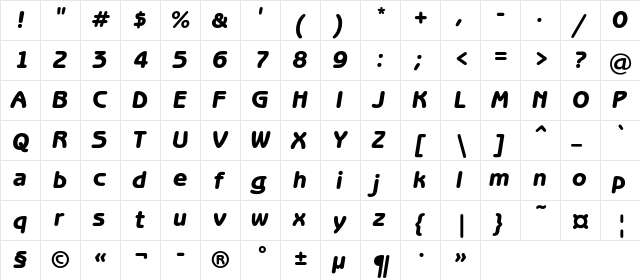
BenguiatGothicHeavyC Italic
Design Context for BenguiatGothicHeavyC Typeface
BenguiatGothicHeavyC takes a clean, functional approach — its unadorned letterforms prioritise legibility and work reliably across screen and print environments. Its italic angle brings a sense of urgency and motion to the letterforms.
Font Pairing: Works well alongside a characterful serif or display font that can carry the expressive load while BenguiatGothicHeavyC handles the functional copy.
Pro Tip: Use BenguiatGothicHeavyC for UI labels, navigation, and short-form body copy where clean legibility is the priority.